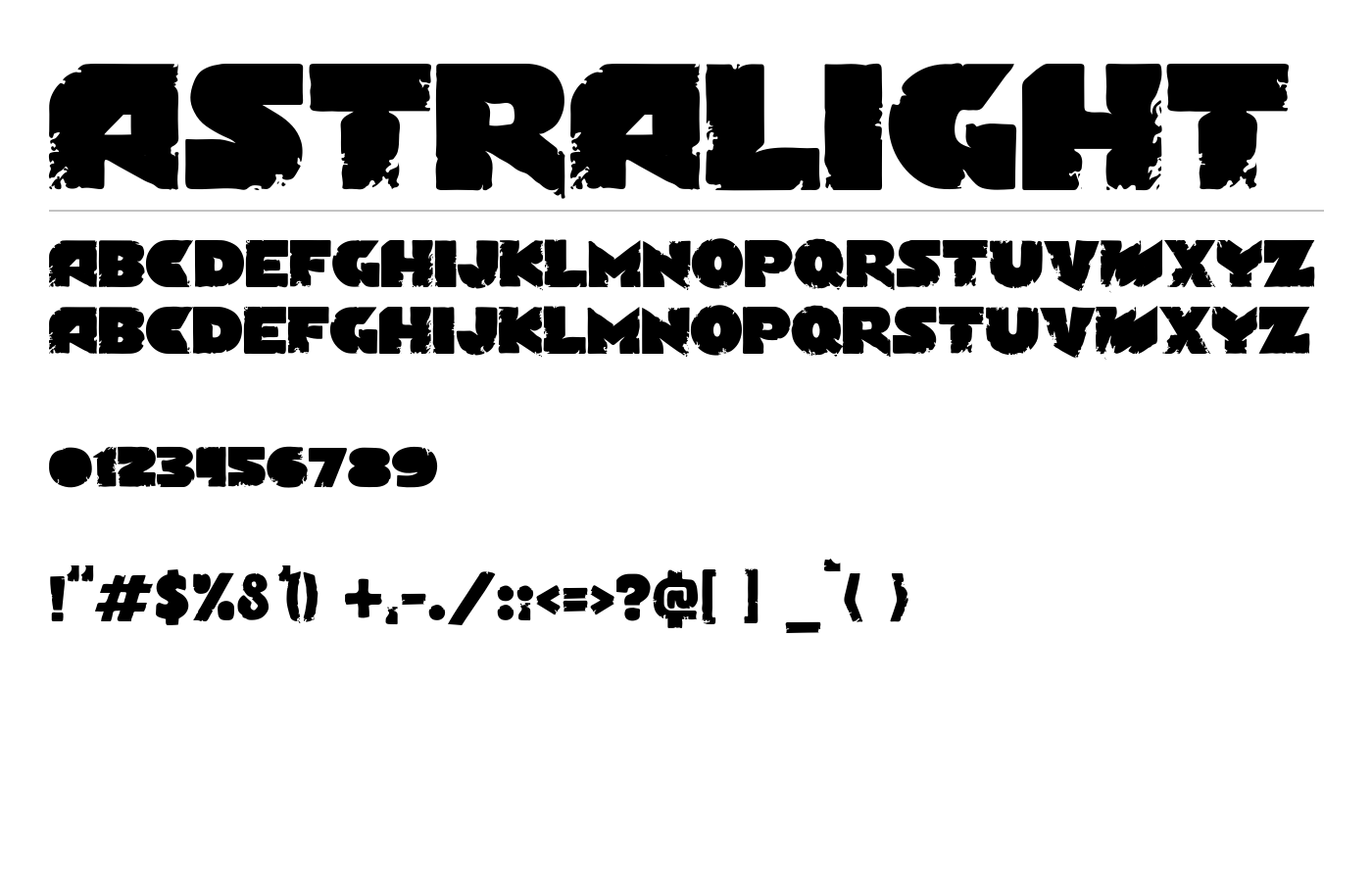
Astralight is a bold, heavy sans serif font with a distressed, grunge texture that adds a rough, dynamic edge to its wide, blocky letterforms. Its strong presence and imperfect, worn details make it ideal for eye-catching headlines, posters, and branding that seeks a rebellious or urban vibe. This font works best where you want to convey energy and attitude rather than subtlety or elegance.
Astralight Font
About Astralight Font